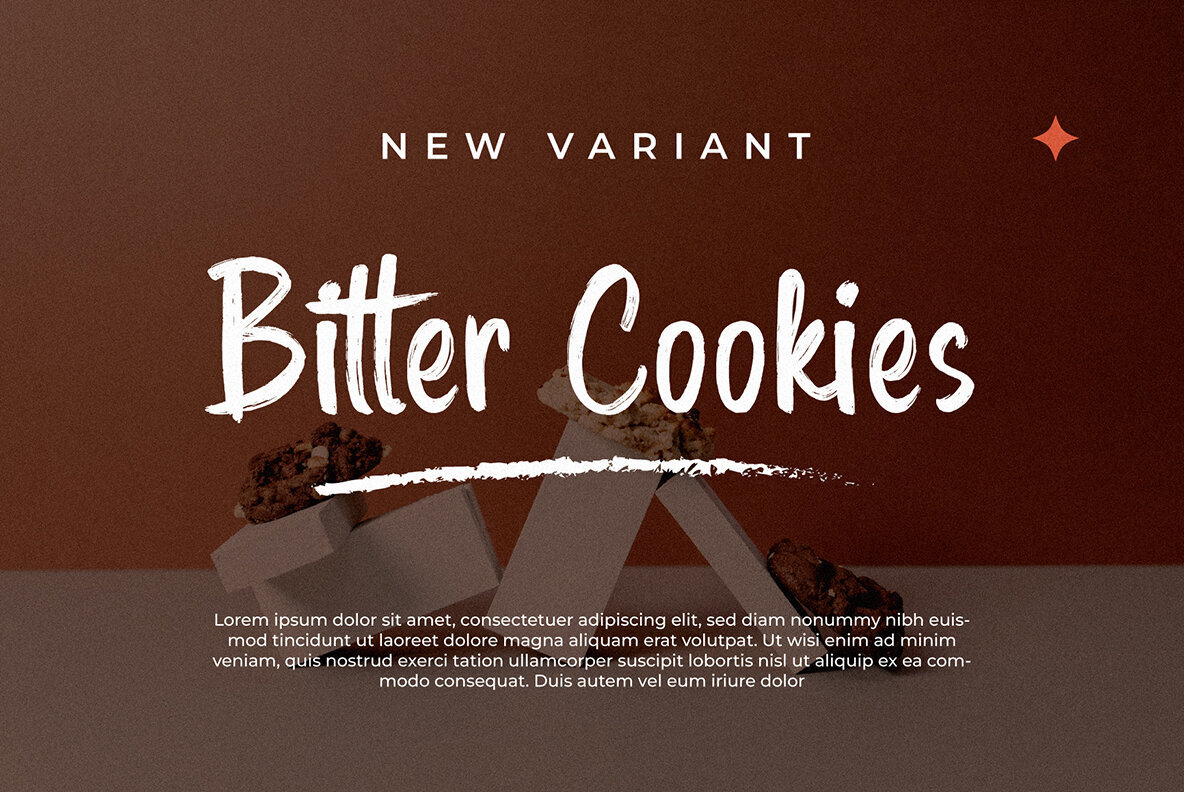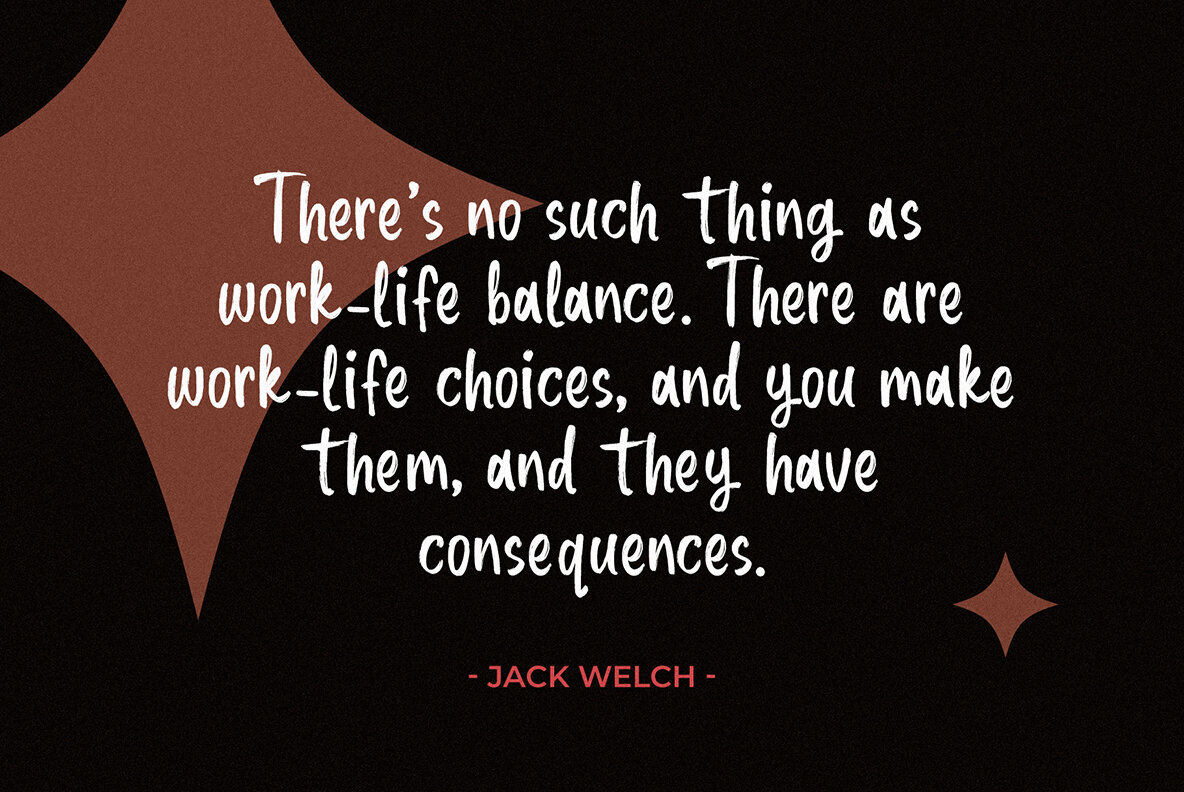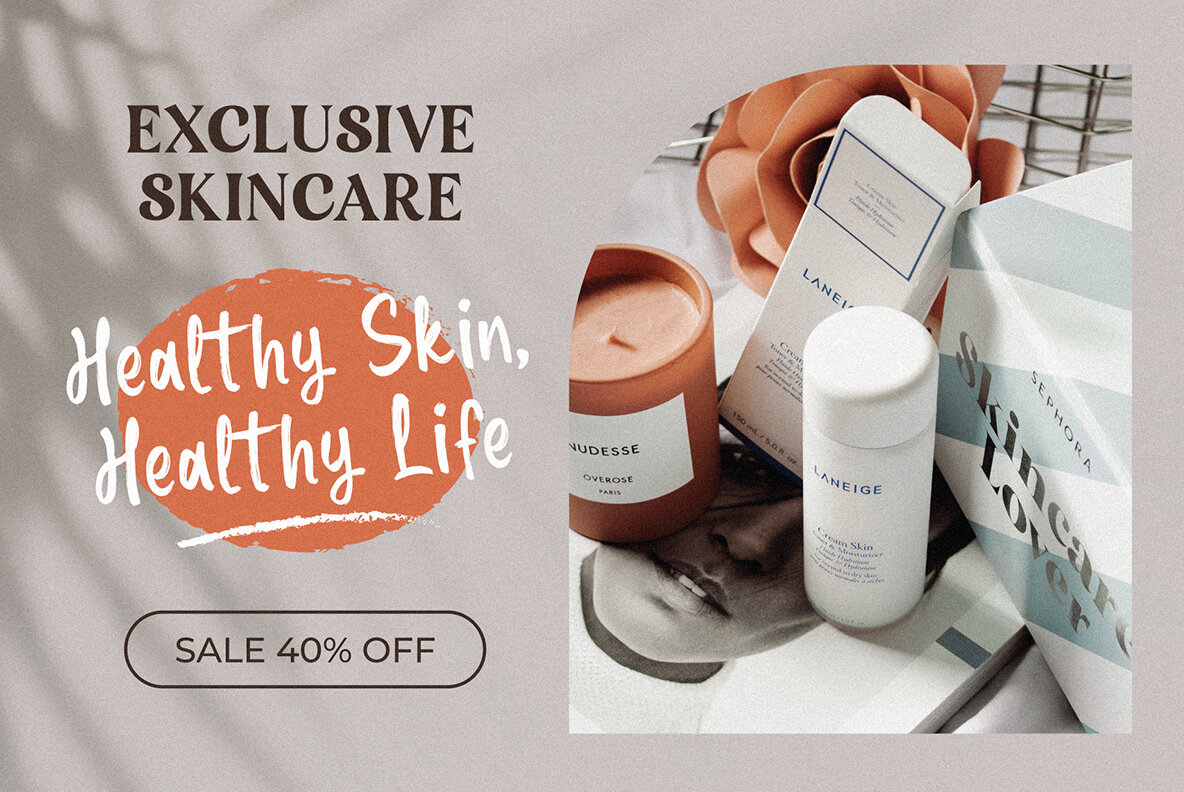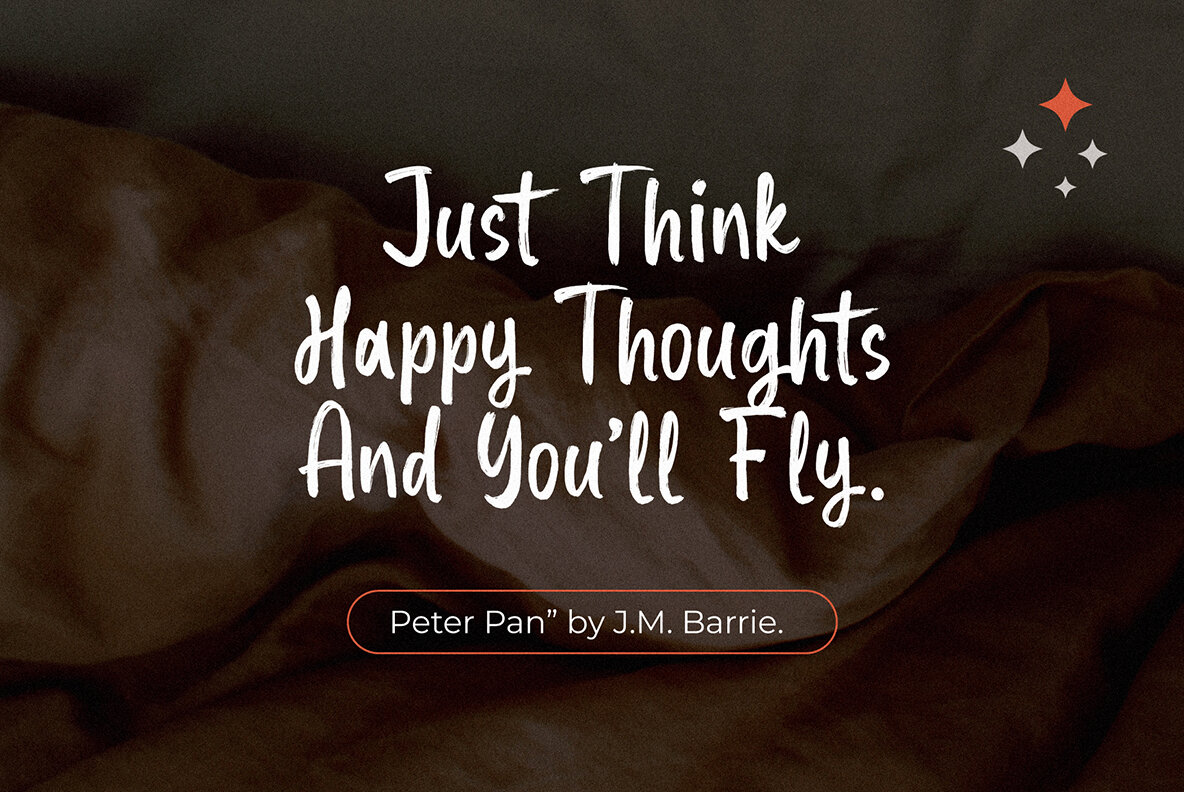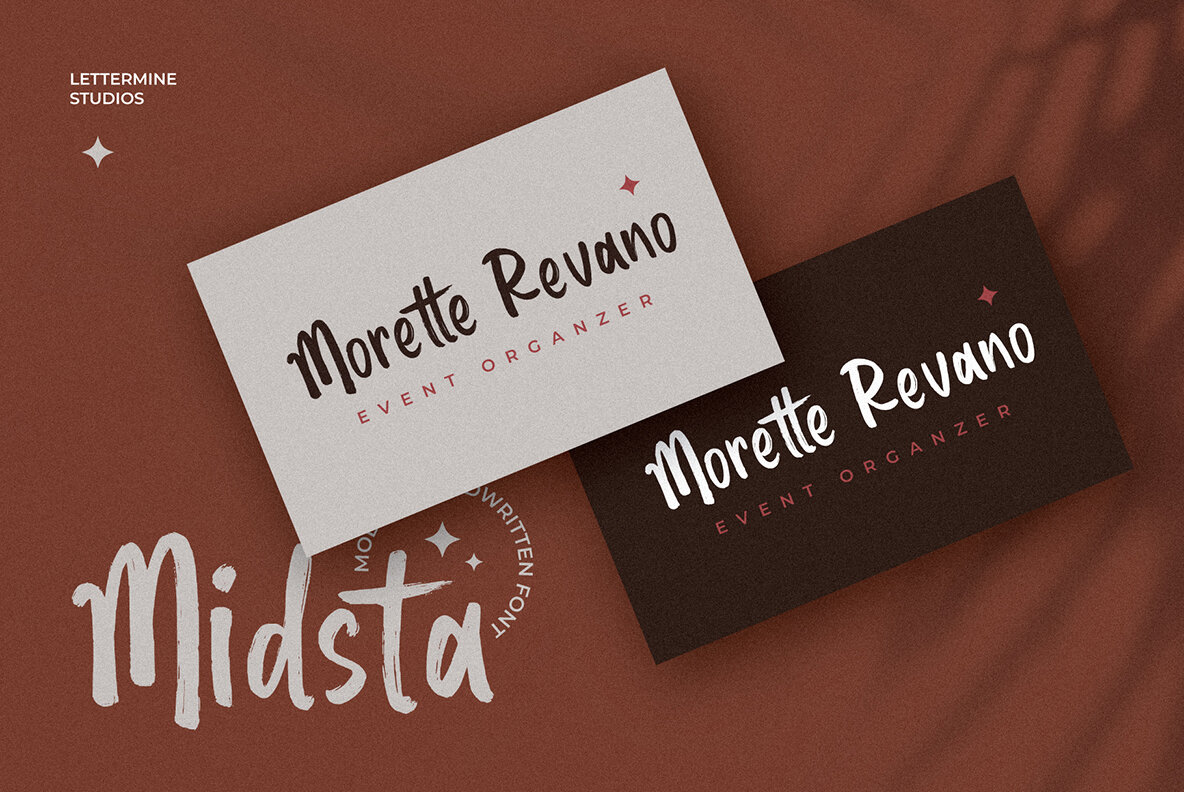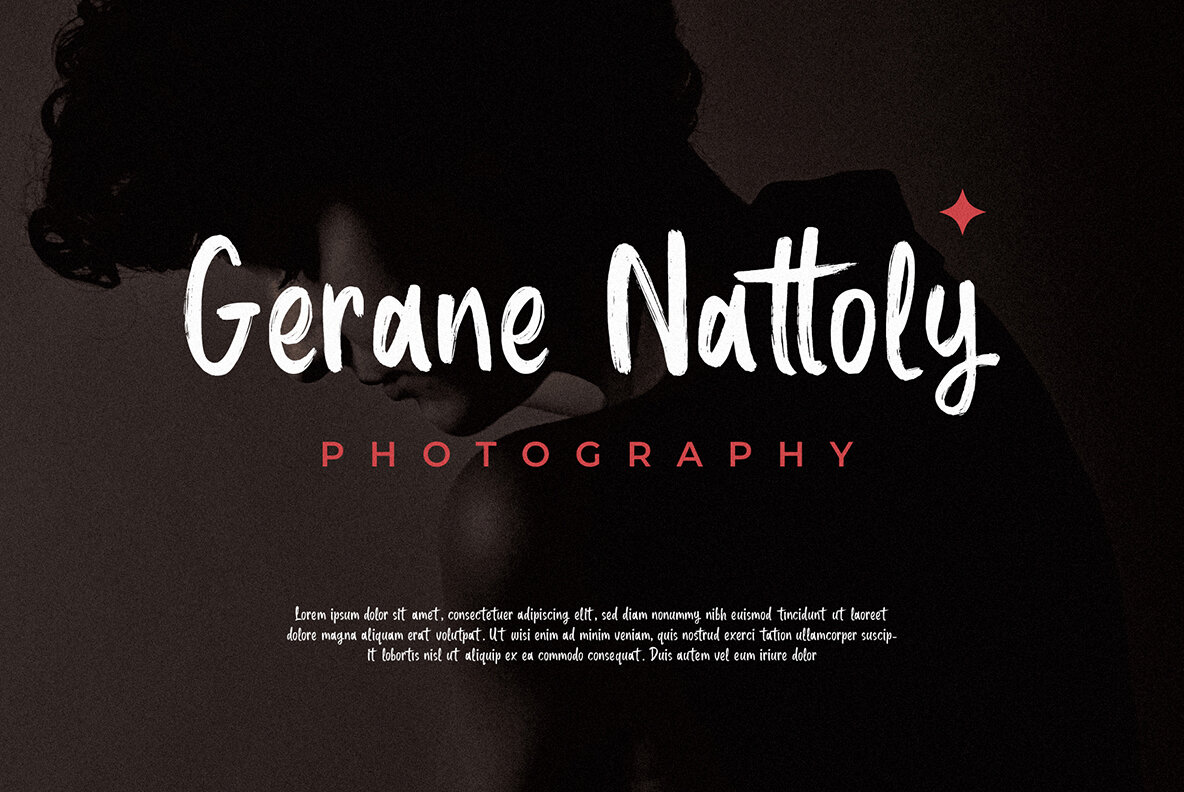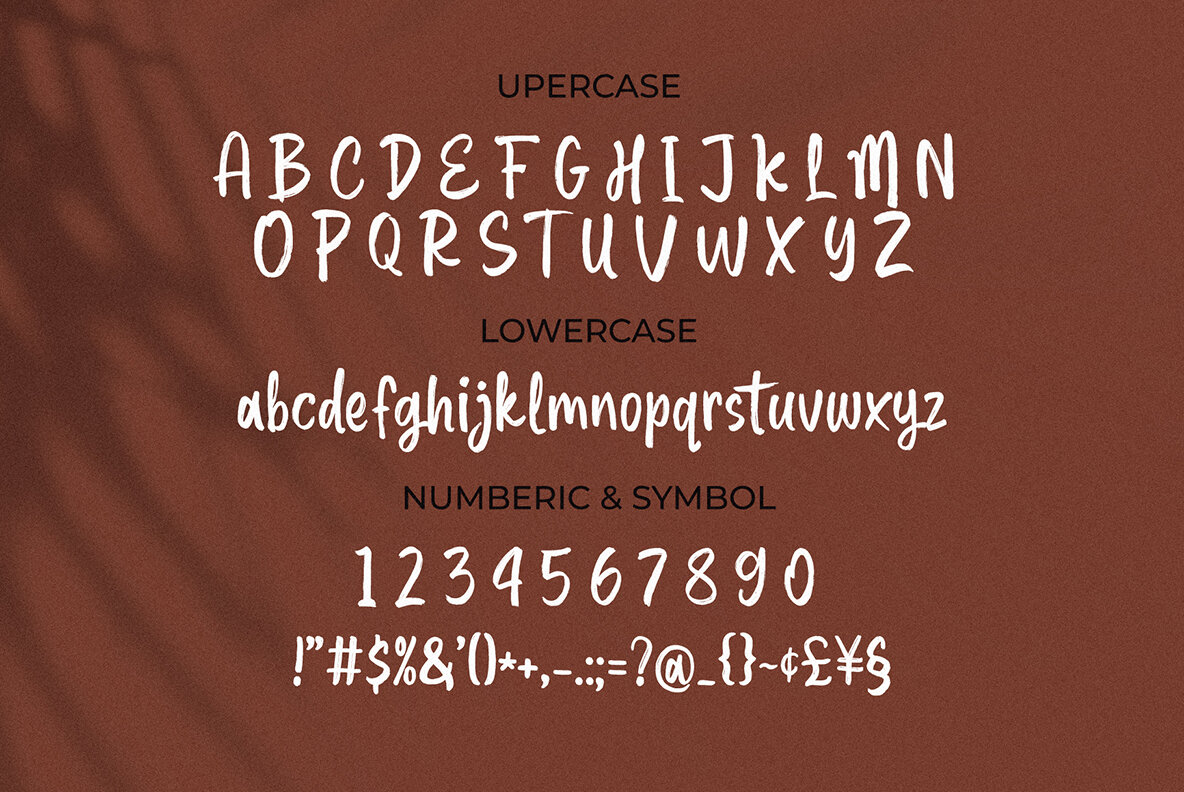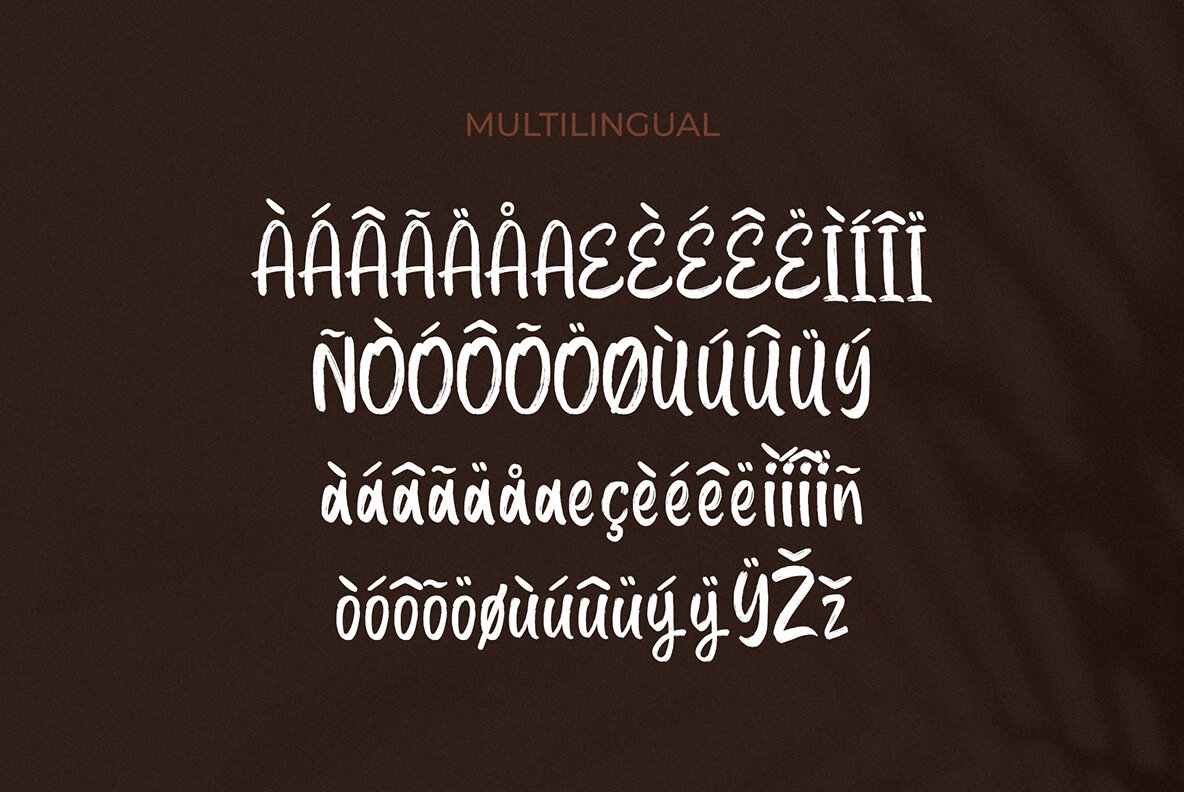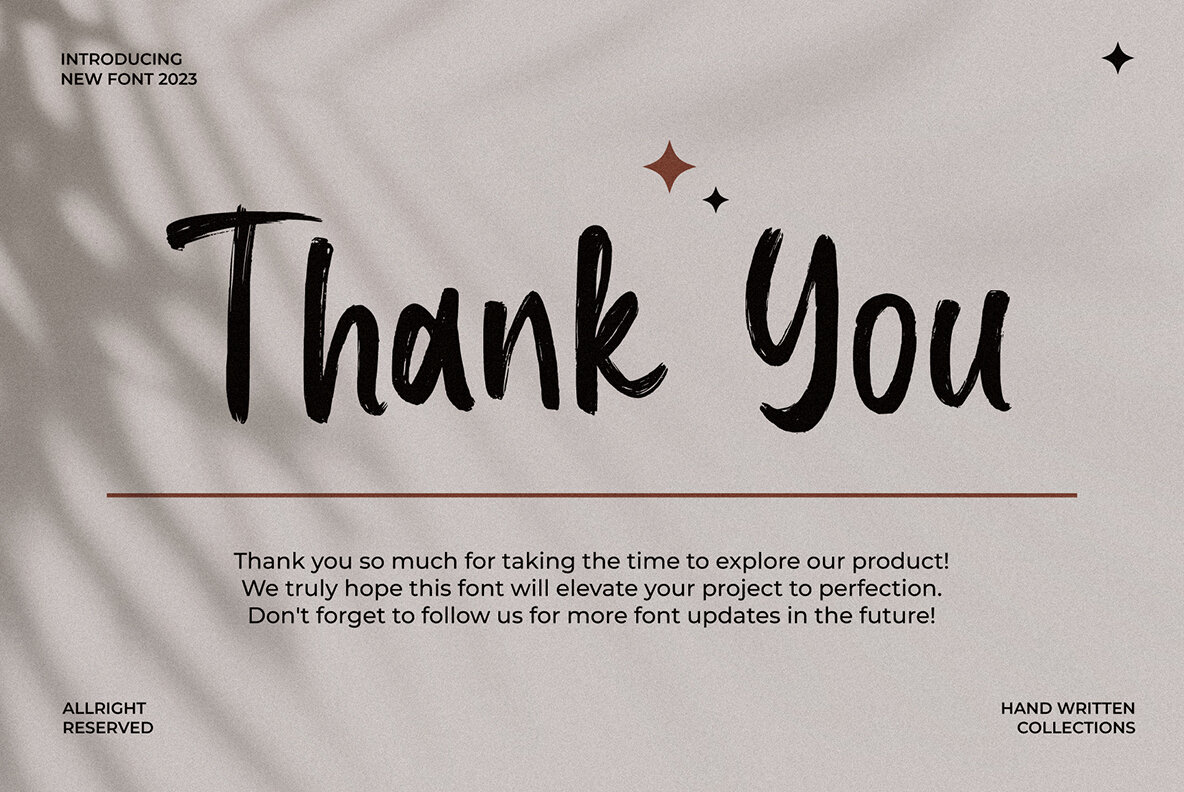
Midsta Font
Midsta Regular
A captivating and versatile Handwritten font designed to add a touch of elegance and modernity to any project. Whether you're designing for the fashion industry, food industry, or various celebratory occasions like weddings, birthdays, or engagements, this font is your perfect companion. With its stylish and contemporary Handwritten brush font style, Midsta - Handwritten Brush Font effortlessly captures attention and elevates your designs to new heights. Key Features: